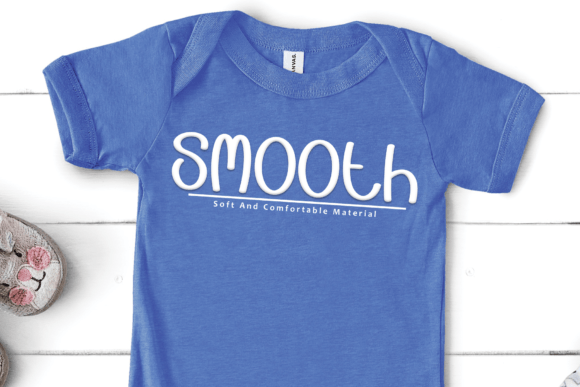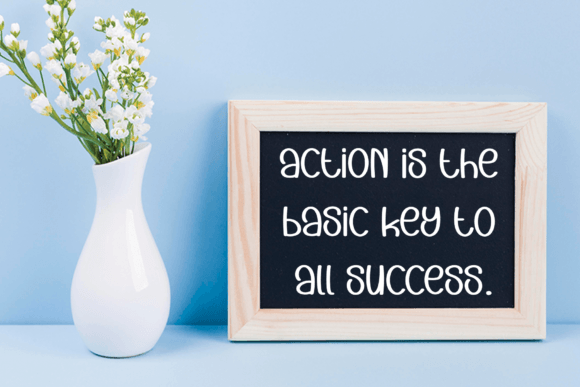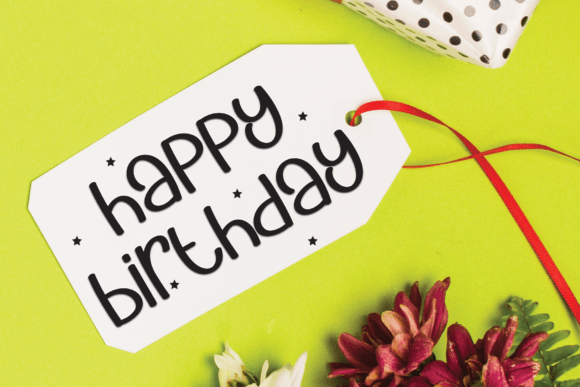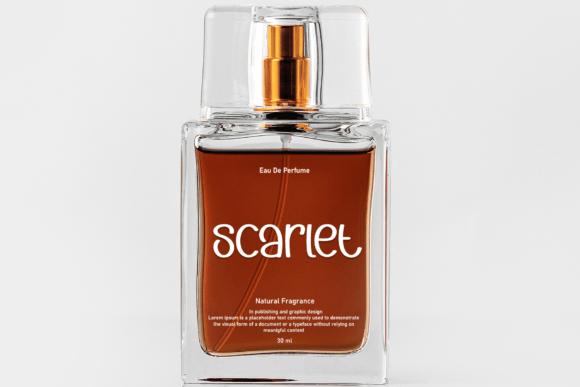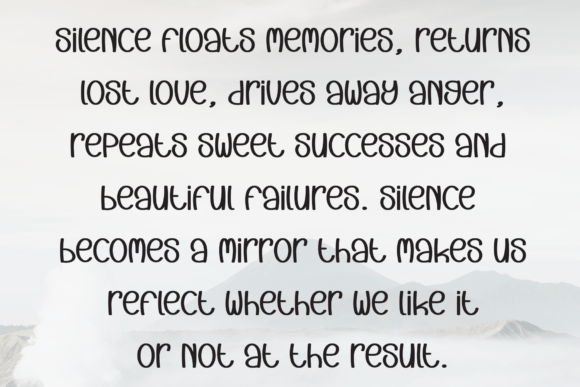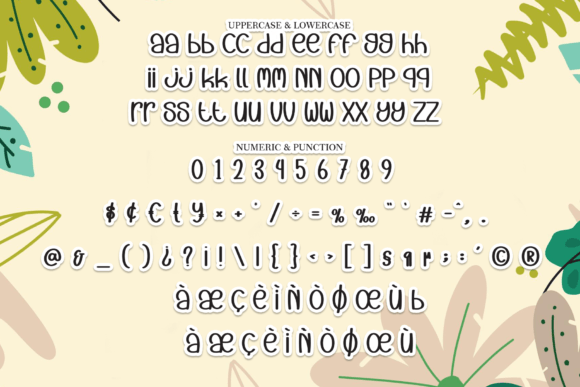
Introduction to Monday Mother Font
Monday Mother is a sweet and friendly handwritten display font.
Cute and fun, this font is ideal for writing wedding invitations, cards, or any other design that might need a fun touch .
Key Features of Monday Mother Font